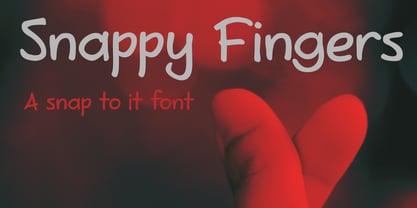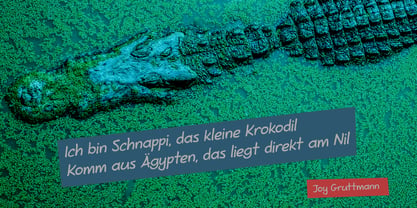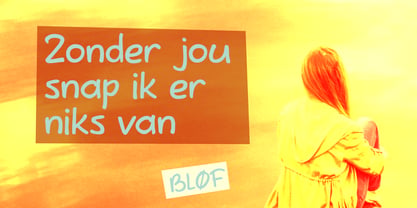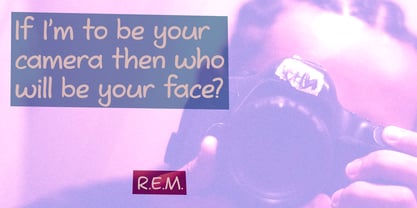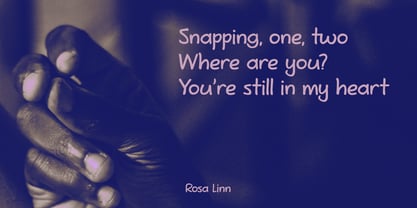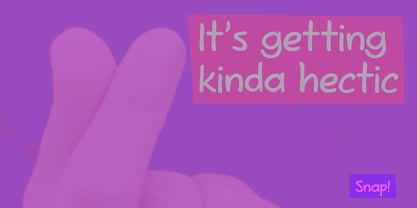
Snappy Fingers Pro
by Hanoded
The Snappy Fingers Pro Font Family was designed by David Kerkhoff and published by Hanoded. Snappy Fingers Pro contains 2 styles and family package options. More about this family
Snappy Fingers is a remake of a really old font, called Joe Schmoe, which I made for my other foundry years ago. I really like this font, but it needed a lower case and some serious tweaking.
Snappy Fingers is a fun, handwritten font with a friendly attitude and a contemporary look. It (now) comes with fantastic language support and a new lease on life!
Designers: David Kerkhoff
Foundry: Hanoded
Hanoded is run by Dutchman David Kerkhoff. His fonts are a mishmash of styles, as he just creates whatever pops into his head. You will find a lot of brush fonts in his collection, as his favourite tools are brushes and Chinese ink, with cartoon style fonts and script fonts complementing his repertoire. Aside from making fonts, David occasionally guides tours in far-flung places, renovates his '30's house and tries reasoning with his wife and (teenage) kids. Not an easy task!